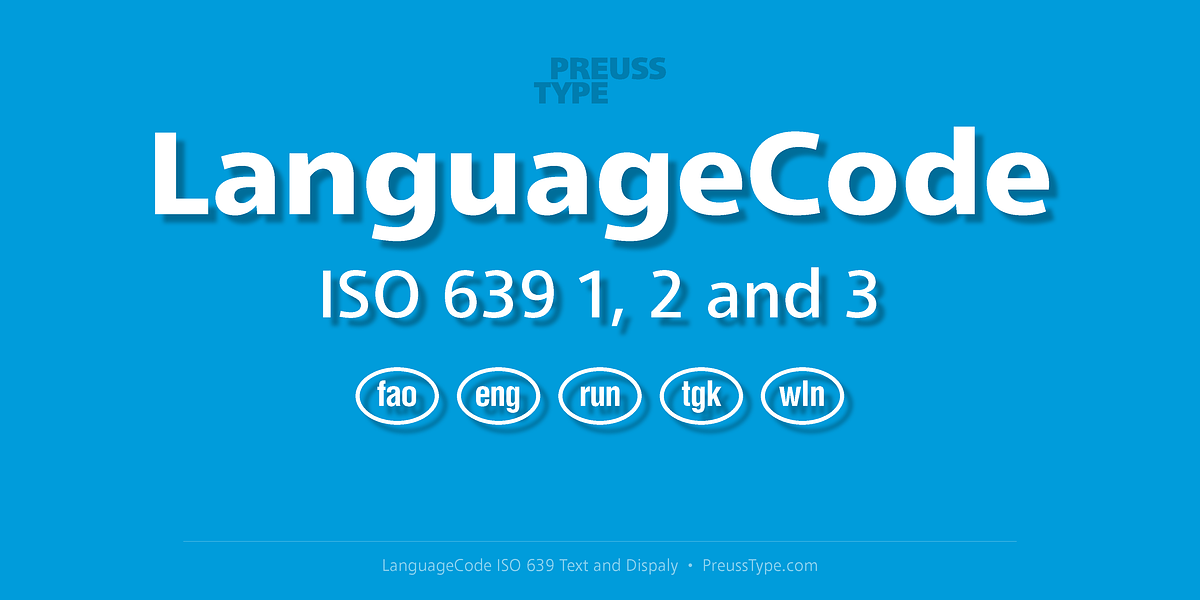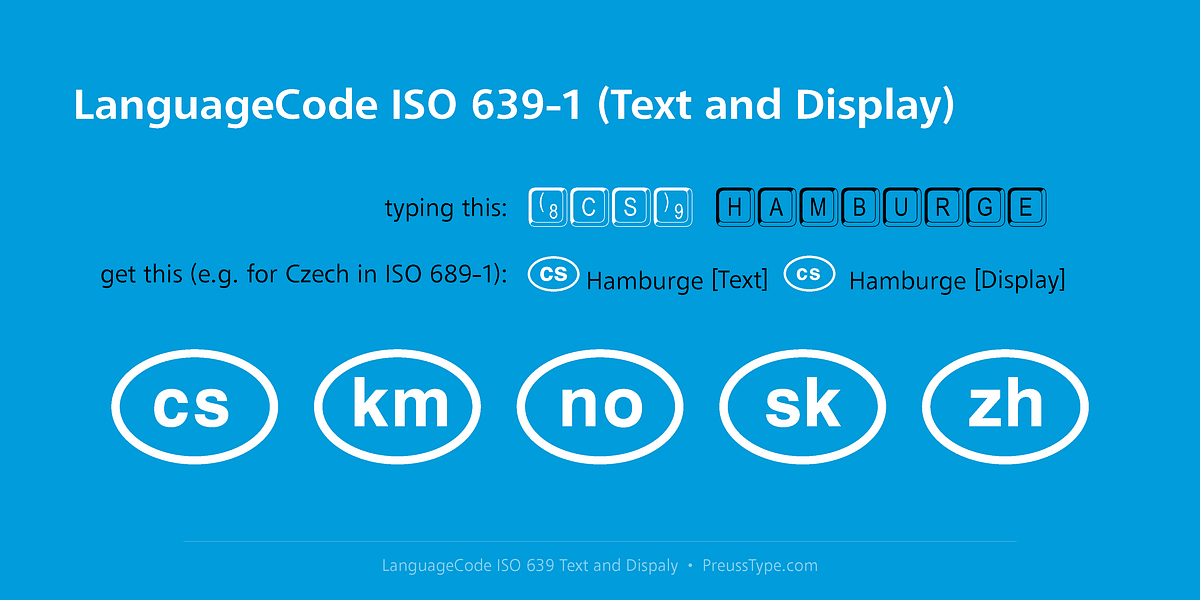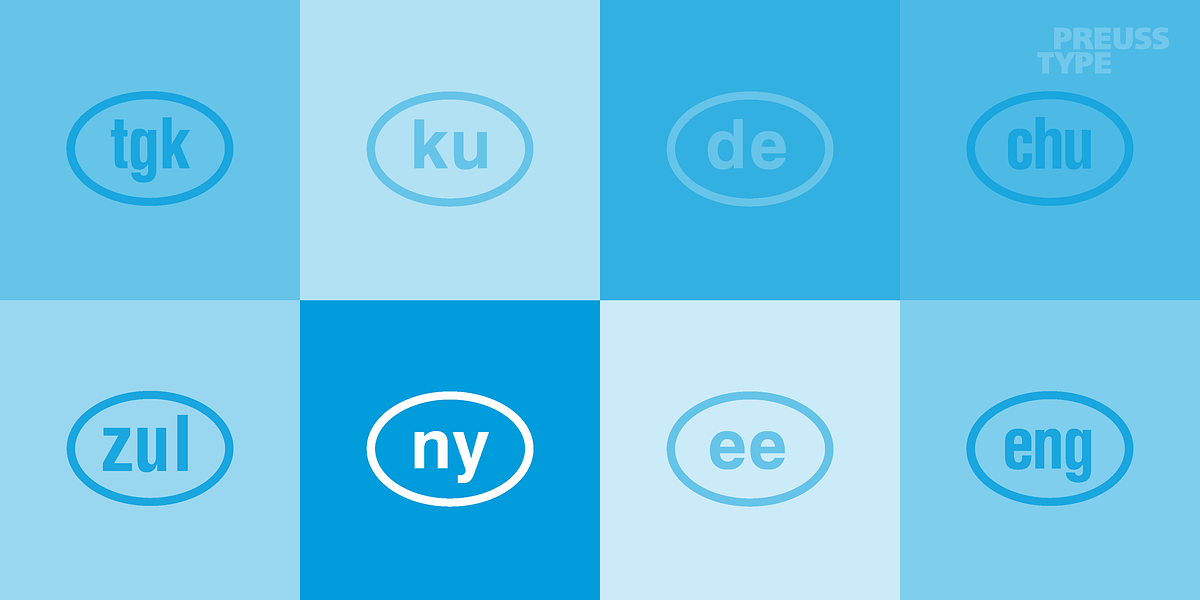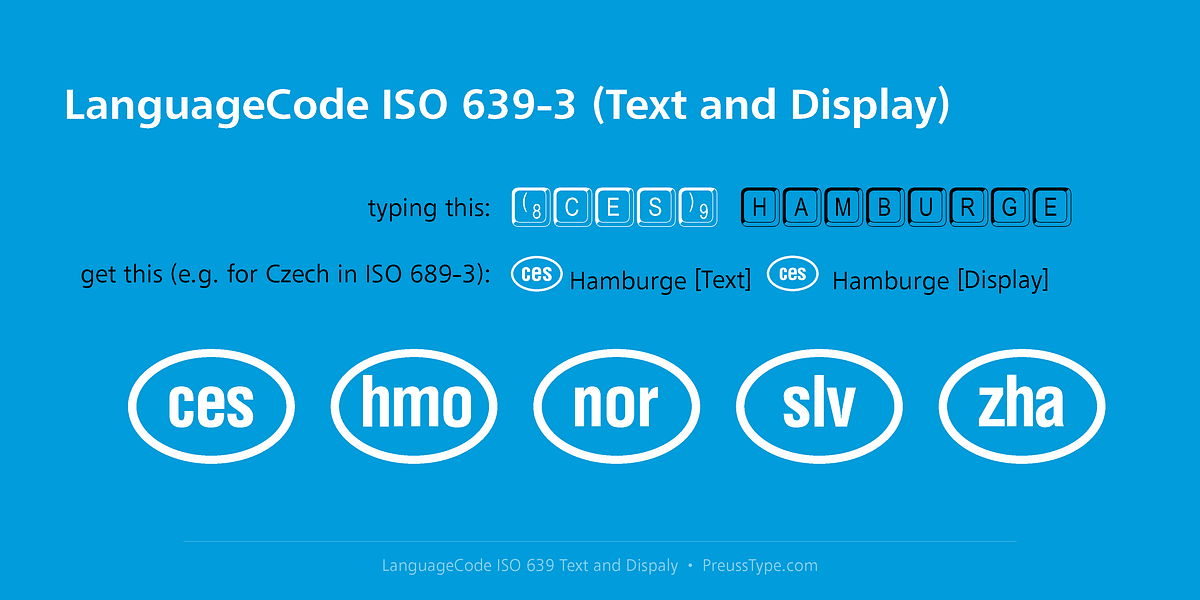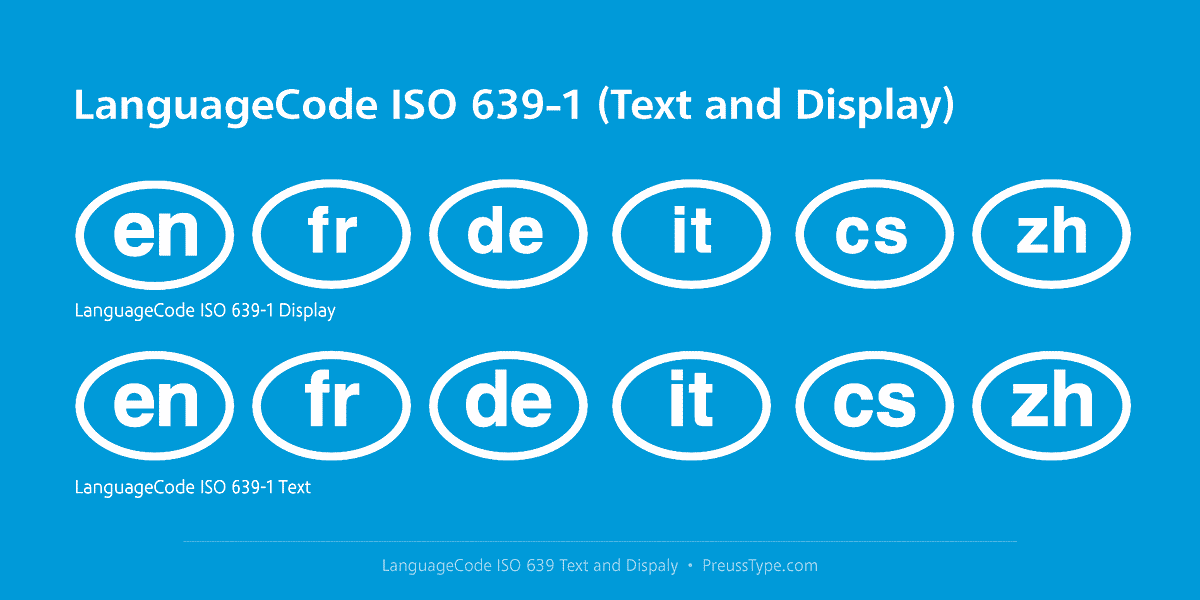
Language Code
This dingbat font is designed to visually represent ISO 639 language codes, which are used to standardize the classification of languages worldwide. It features individual characters corresponding to two-letter and three-letter language code abbreviations.